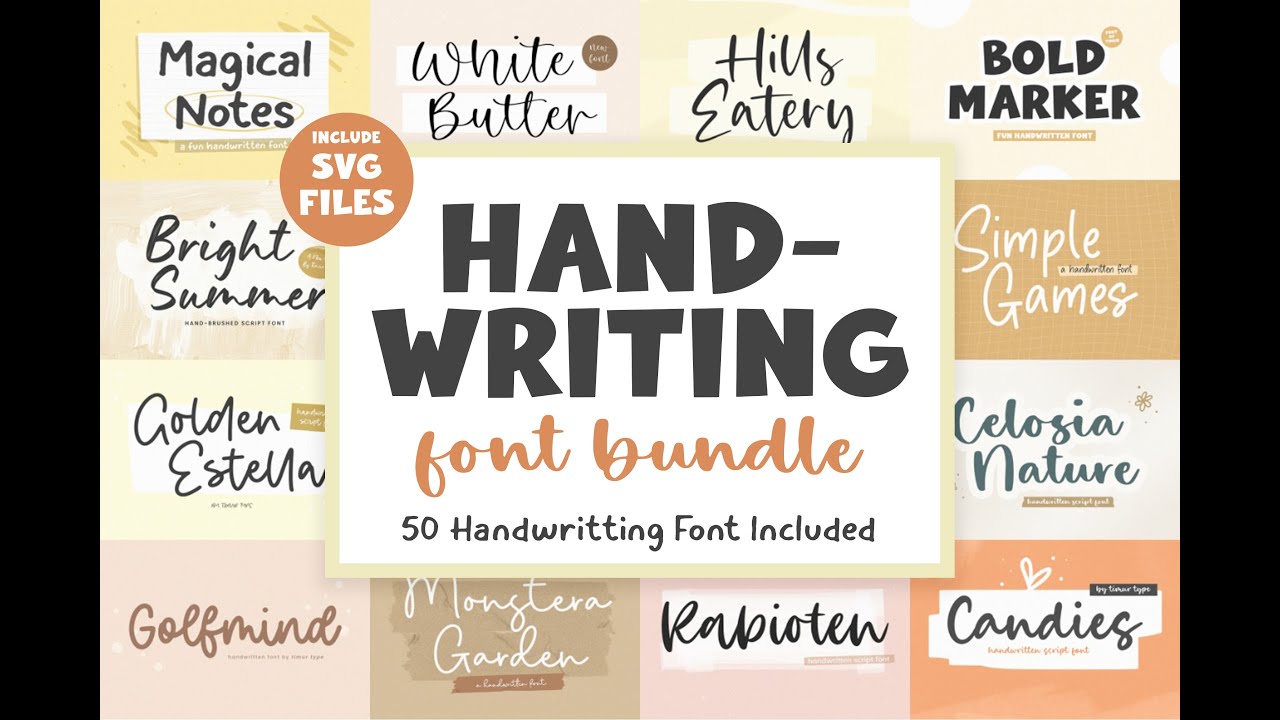
Handwriting 50 Font Bundle Timurtype
Handwriting 50 Font Bundle Timurtype Handwriting 50 font bundle this pack is perfect for greeting cards, branding, business cards, quotes, posters, stickers, blogs, logos, weddings, signage, packaging, birth announcements, photo overlays, wall art, quotes, printed materials, bags, t shirts and much more !. This bundle includes a variety of font for your projects with hundreds of glyphs, including alternatives, ligatures, swashes, alternates and international language support.